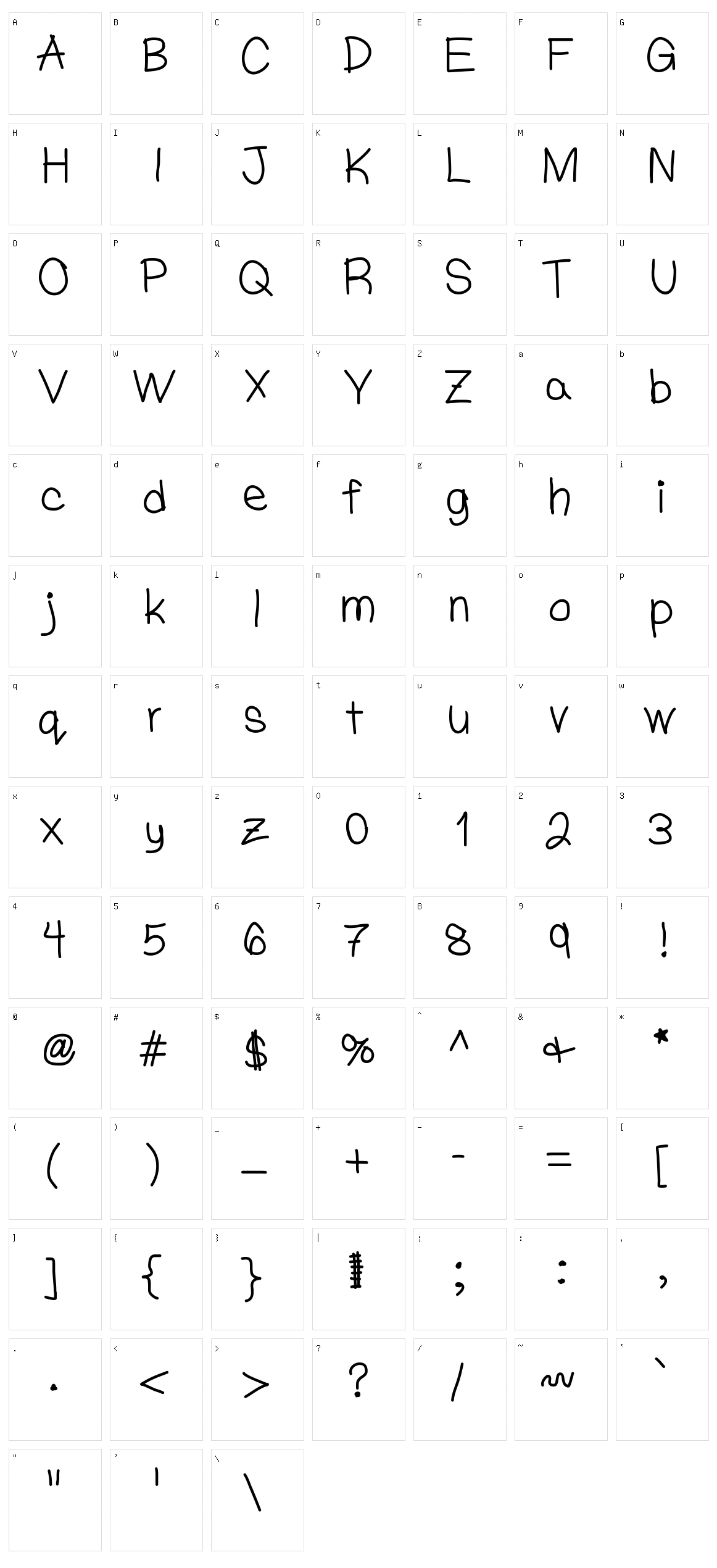
The free font OMG Write Like William is carefully designed by William Koch, showcasing a thoughtful balance of creativity and usability and falls under the Script font style. When you download the ZIP file, it contains only 143.88 KB of font files, making it lightweight and quick to download. Please review the license details below to understand permitted usage and distribution rights. If license information is not available, we recommend using this font for personal projects only or contacting the author directly for commercial usage permissions.